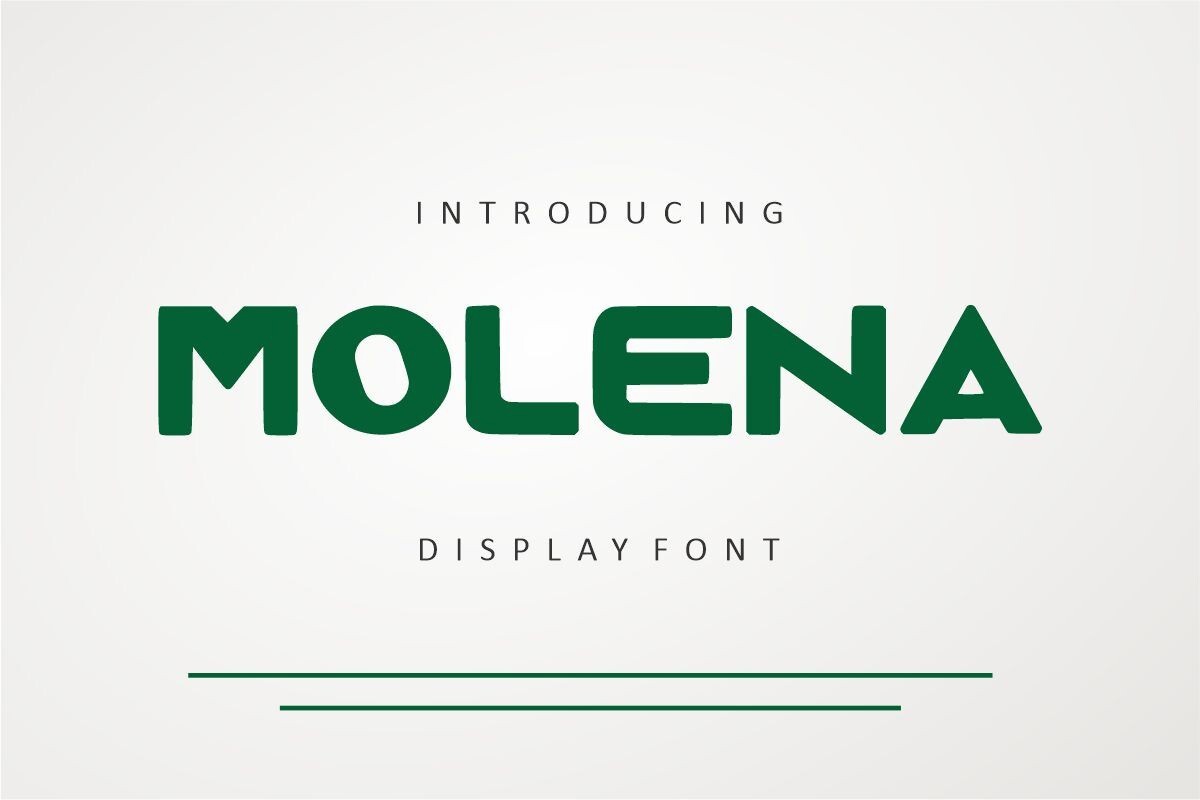
Molena Font
Molena Font is perfect for artisan bakery branding, handmade craft packaging, organic farm markets, rustic wedding materials, cozy café signage, handcrafted product labels, countryside retreat branding, farm-to-table restaurant menus, traditional craft workshops, and authentic homemade goods marketing.
Molena Font is exciting because it perfectly captures the essence of traditional craftsmanship and authentic handmade quality, creating a typeface that embodies the warmth, skill, and personal touch of artisanal creation. This font brings homespun elegance and craft authenticity to any project, making it ideal for brands that want to convey tradition, quality craftsmanship, and the honest beauty of handmade goods. Its organic character and artisanal appeal create an atmosphere of authentic craftsmanship that resonates with audiences who value traditional skills and genuine quality.
Molena Font family includes light, regular, medium, and bold weights, each available in roman and italic styles with craft ornaments and artisan decorative elements, providing designers with comprehensive tools for creating authentic handmade typography and traditional craft brand experiences.
This charming artisan typeface combines traditional craftsmanship aesthetics with contemporary design functionality, making Molena Font Free Download a perfect choice for projects celebrating handmade quality and traditional skills. The font's lovingly crafted letterforms feature organic proportions and craft-inspired styling that reflect the careful attention and personal touch that defines authentic artisanal work.
Whether you're designing craft business branding, artisan market materials, or traditional workshop communications, Molena Font delivers unmatched handmade authenticity and craft appeal. The font excels in both intimate artisan applications and larger craft fair environments where traditional skills and handmade quality create meaningful connections with customers.
Artisan professionals appreciate Molena Font for its ability to instantly communicate craftsmanship and traditional quality while creating emotional connections with audiences seeking authentic handmade experiences. The font's craft character makes it particularly effective for traditional bakeries, handmade goods producers, and artisan workshops.
Each character reflects the careful attention of skilled craftspeople, featuring organic curves and traditional proportions that create typography as warm and authentic as fresh-baked bread or carefully handcrafted pottery.